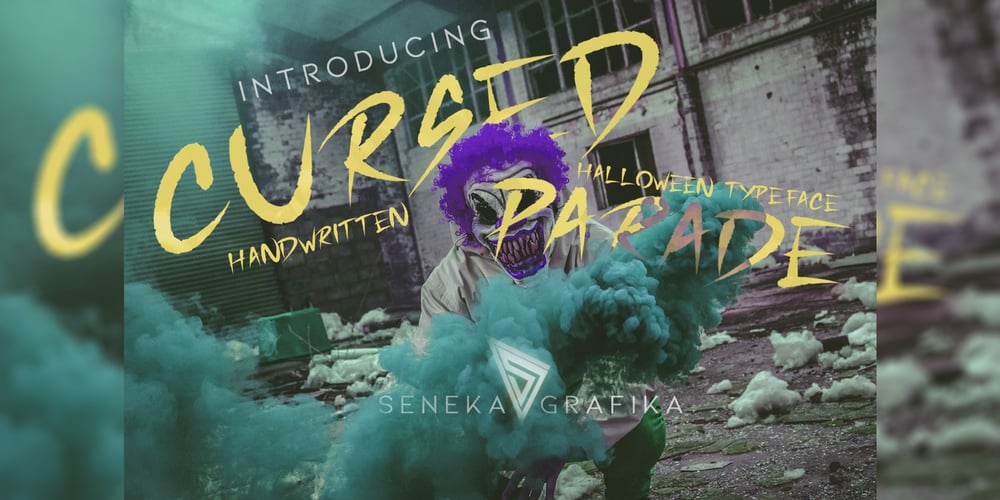
Cursed Parade Font Family was designed by Fikri Irsvansyah and published by Senekaligrafika. Cursed Parade contains 1 styles and family package options. “Cursed Parade” Has hard strokes and a signature styles that speak to instant scared sensations,it was inspired by horror and thriller movie “IT”.”Cursed Parade” will help you to create special and touching typographical design for your horror and dark projects, for branding, labeling, clothing, movie title, album cover, logos and many more. It is really universal and modern font.The owner of endless possibilities!